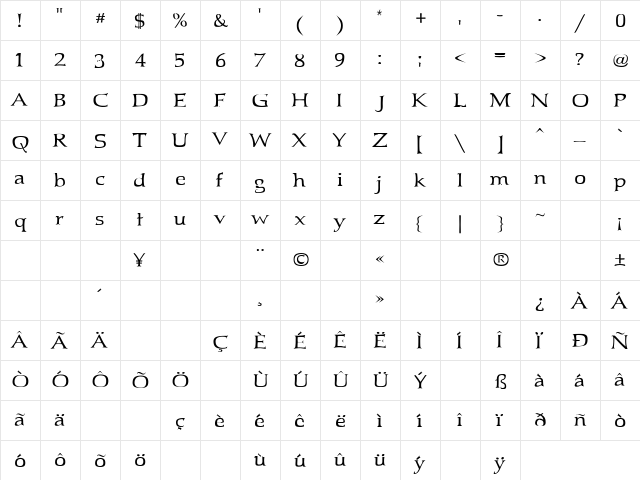
Jhunwest Concave GM Regular
Design Context for Jhunwest Concave GM Typeface
Jhunwest Concave GM takes a measured approach to typography — its balanced proportions and neutral character make it a reliable workhorse for both digital and print work.